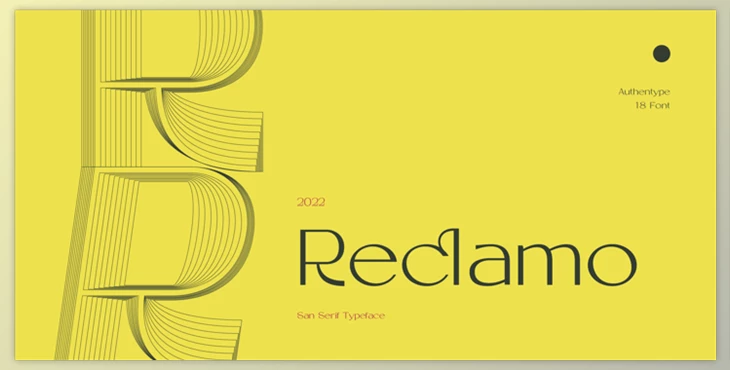
Reclamo – 18 San Serif Font: Simple and elegant design of the San Serif family with a couple of contrasting accents. Inspired by the dove cosmetics brand, I believe I could incorporate an easy, clean elegant, and sophisticated print in this San Serif family. Reclaim is a Balinese word meaning advertising. It is a form of communication that is oral and is embedded into the minds of people.